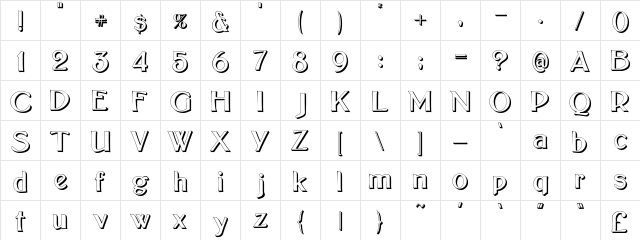
Bolton Sans Embossed Regular
| Designer | PJLF |
Design Context for Bolton Sans Embossed Typeface
Bolton Sans Embossed takes a measured approach to typography — its balanced proportions and neutral character make it a reliable workhorse for both digital and print work.